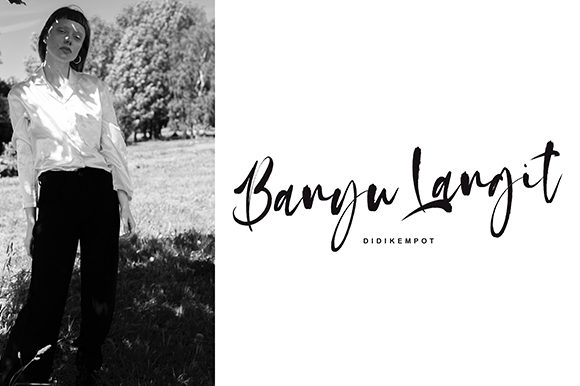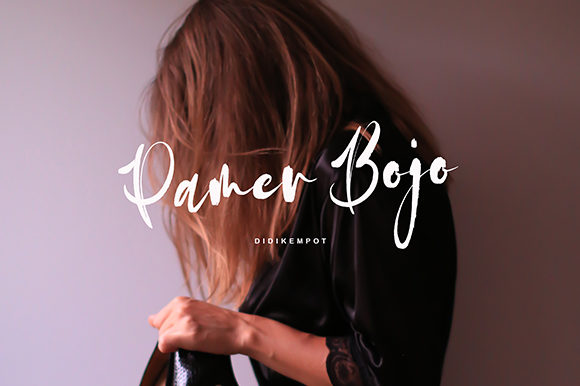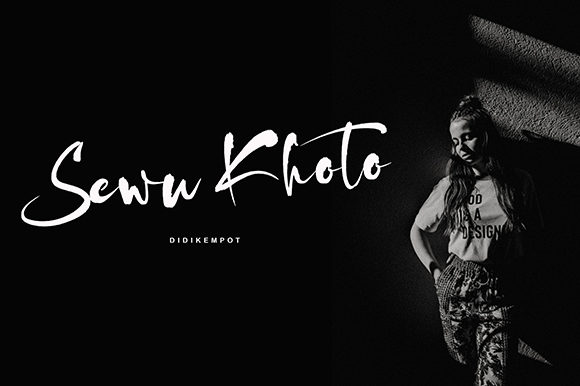
Introduction to Aleita Font
As a designer, you’ve probably been there – staring at a blank canvas, trying to conjure up the perfect font to bring your creative vision to life. You browse through countless options, but nothing seems quite right. That’s where Aleita Font comes in – a fresh, handwritten font that’s sure to give your design project a personalized touch.
| 👤 Author | Pineungtype & Missinklab |
Aleita Font is more than just a pretty face; it’s a valuable resource for designers looking to add a unique flair to their work. With its high-quality design and transparent background, this font is perfect for any creative project that requires a touch of elegance and sophistication. And the best part? It’s available for free download, making it an accessible design resource for designers of all levels.
Key Features of Aleita Font
- High-quality design: Aleita Font is a premium font perfect for creative projects, offering a unique and stylish look.
- Transparent background: This font features a transparent background, allowing for easy layering and customization in your design.
- High-resolution design: With a resolution of 300 DPI, Aleita Font is ideal for printing and digital applications.
- Unique characteristics: Aleita Font boasts a distinctive and elegant style, making it perfect for creative projects, such as branding, typography, and more.
Honest Review: Aleita Font
I recently had the chance to work with the Aleita Font, and I must say it’s a great addition to any designer’s toolkit. The font is available for free download, which is a major plus for those of us on a budget.
The quality of the font is exceptional, with crisp lines and a transparent background that makes it perfect for use in creative projects. I especially love the versatility of the font, which can be used in a variety of design contexts, from logos to headings.
⚠️ One potential limitation is that the font may not be suitable for large-scale text, as the lines can become slightly blurred at larger sizes. However, this is a minor issue and can be easily avoided by using the font at the right size.
Overall, I’m really impressed with the Aleita Font. It’s a great design resource that can add a touch of elegance to any project. If you’re looking for a high-quality font to use in your creative project, I highly recommend giving the Aleita Font a try.
Common Use Cases for Aleita Font
Aleita Font is suitable for various creative projects, including graphic design, digital art, and typography. Use it to create eye-catching graphics, logos, and titles. The font’s high quality and transparent background feature make it an ideal choice for designers and artists.